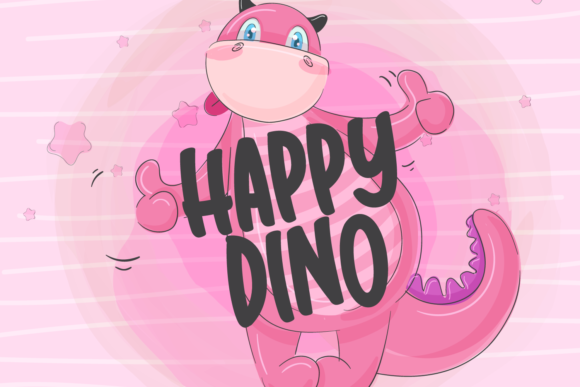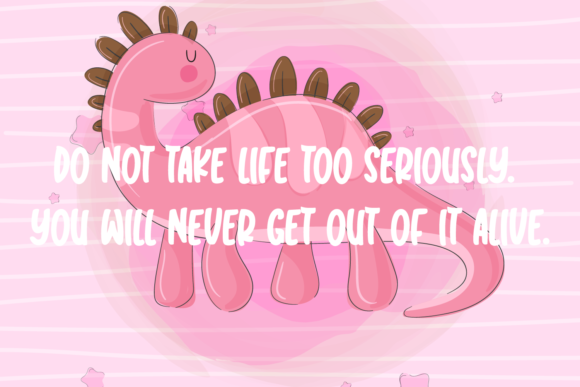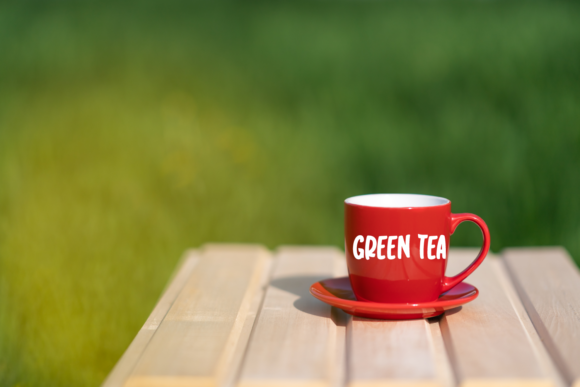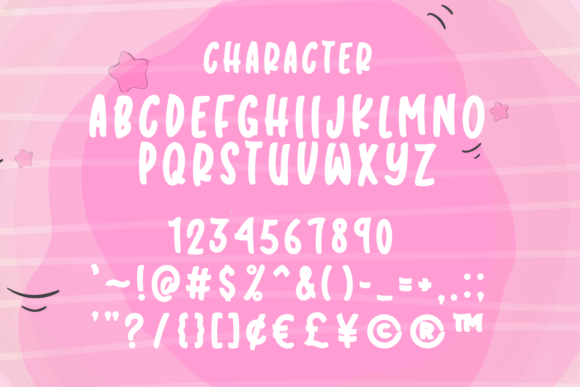
Introduction to Little Dino Font
As a designer, there’s nothing quite like the thrill of bringing a creative project to life. For me, it all starts with a spark of inspiration – a glimpse of a font that perfectly captures the essence of the project. And that’s exactly what happened when I stumbled upon the adorable Little Dino Font. Its playful, whimsical charm immediately had me hooked, and I knew I had to share it with the world.
With its transparent background and high-quality design, the Little Dino Font is a valuable resource for any designer looking to add a touch of authenticity to their next project. Whether you’re working on a children’s activity, a school project, or simply need a fun font to spice up your design, this little dino is sure to delight. And the best part? It’s completely free to download, making it an accessible design resource for designers of all levels.
Key Features of Little Dino Font
- Unique, hand-drawn design perfect for a creative project or children’s book
- Perfect design resource for designers and artists working on children’s content
Honest Review: Little Dino Font
As a designer, I’ve had the pleasure of working with numerous fonts for various creative projects. Recently, I stumbled upon the Little Dino Font, and I’m excited to share my honest review with you.
What works well: ✨ The Little Dino Font is a high-quality design resource that stands out with its unique and playful style. The transparent background makes it easy to incorporate into any design project. I’ve used it for a children’s book cover, and it added a fun and whimsical touch.
Here are some key features that make it a great addition to your design toolbox:
- Unique and creative style that’s perfect for children’s content or playful designs
What doesn’t work well: ⚠️ While the Little Dino Font is a great resource, it may not be suitable for all design projects. The font’s playful style can be overwhelming for more formal or professional designs.
Overall impression: The Little Dino Font is a fantastic addition to any designer’s toolkit. Its high-quality design, transparent background, and free download make it an excellent choice for creative projects. While it may not be suitable for all designs, it’s a great resource to have in your arsenal.
Tips for Getting the Most Out of Little Dino Font
For optimal results, use the Little Dino Font in conjunction with other design elements to create a cohesive look. Experiment with different font sizes, colors, and styles to add visual interest to your design.
The Little Dino Font is perfect for creating fun and playful graphics for children’s parties, educational materials, and family-friendly branding. Its unique design makes it a great addition to any creative project.